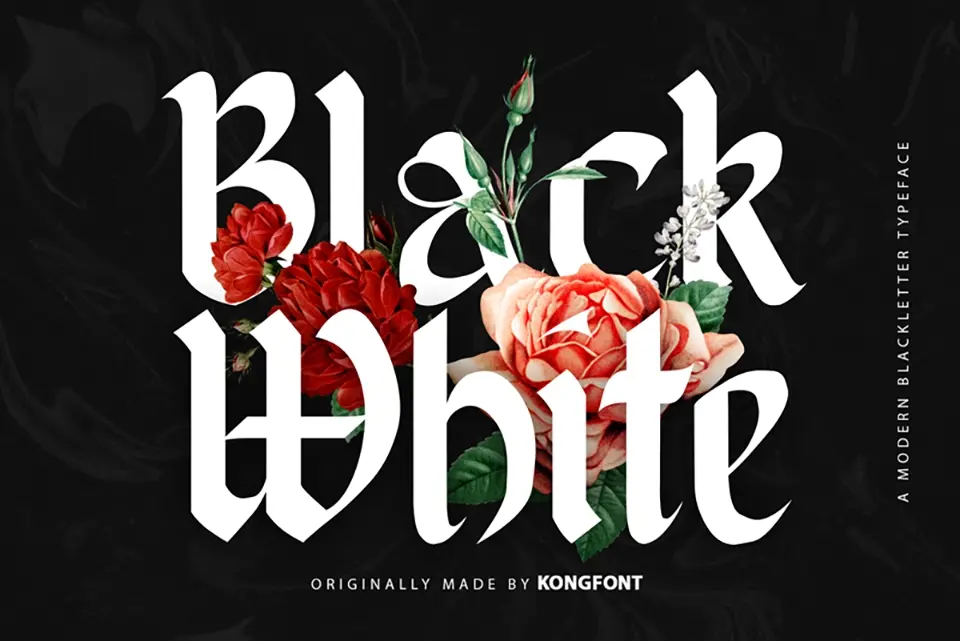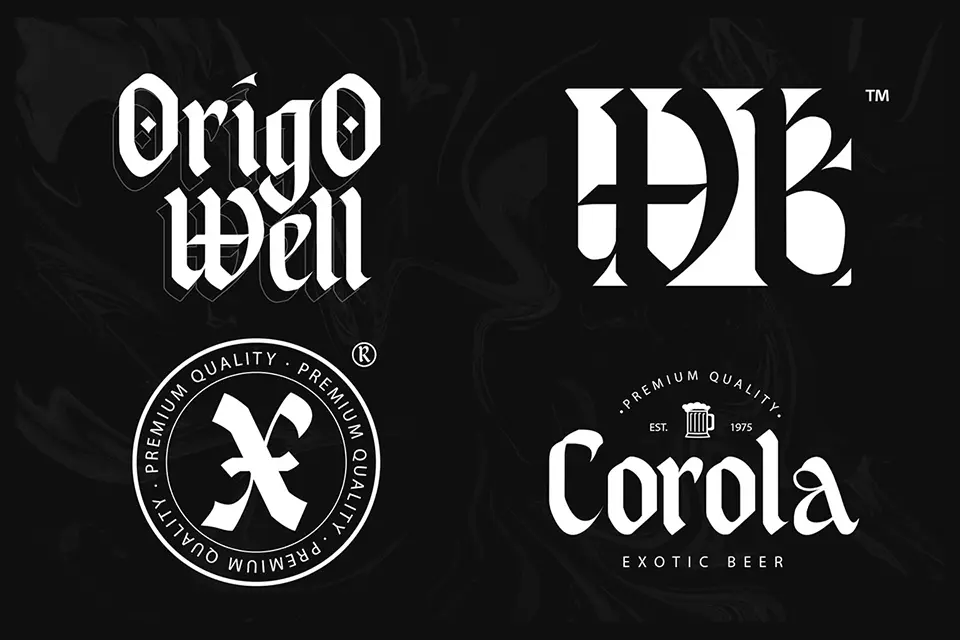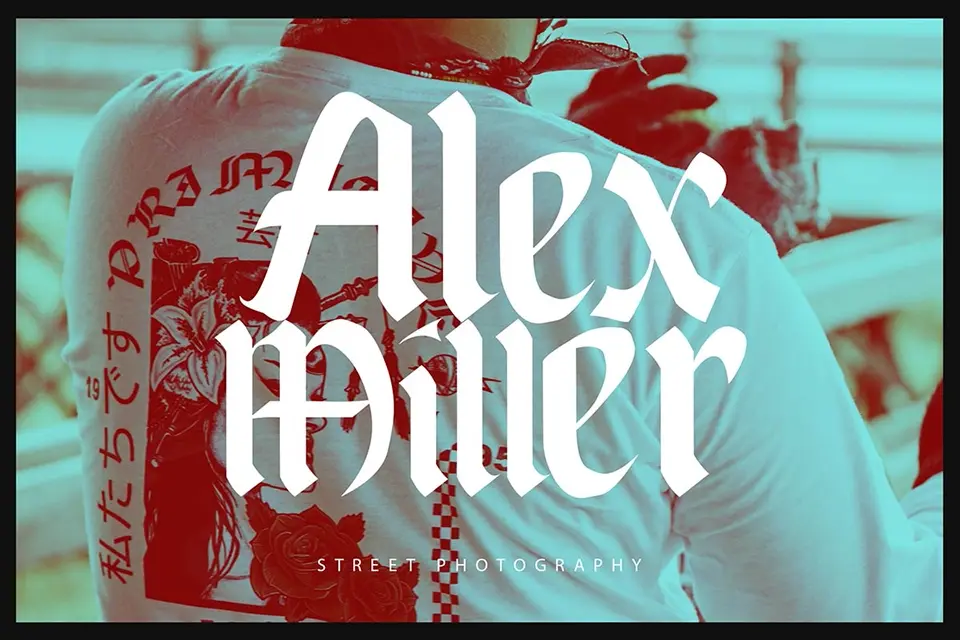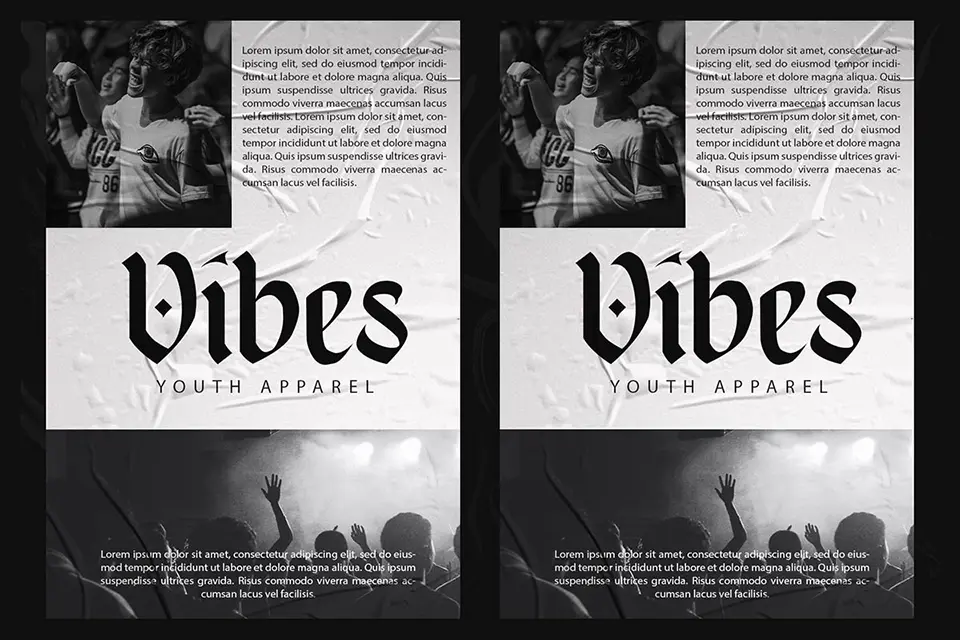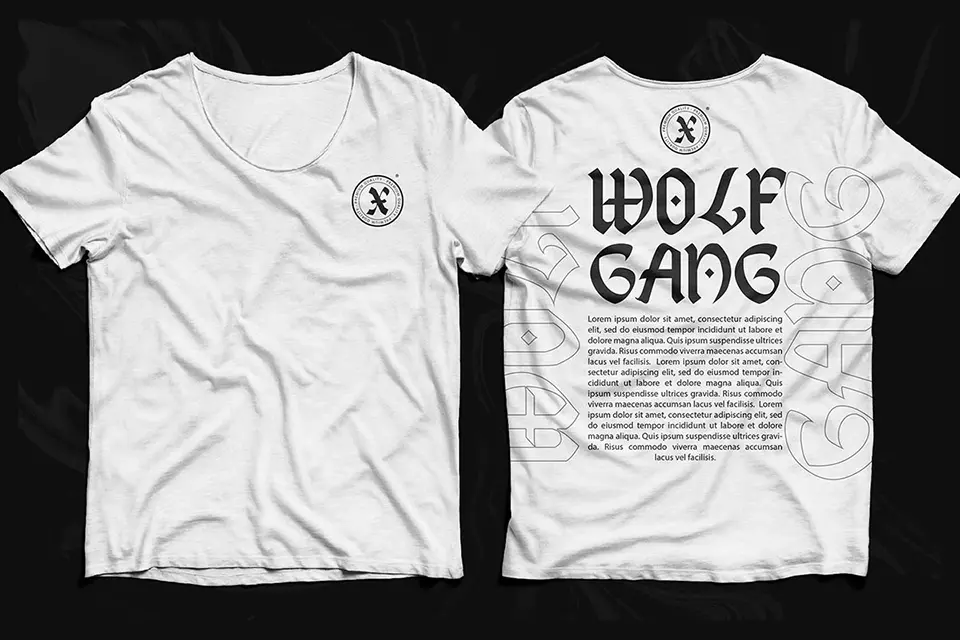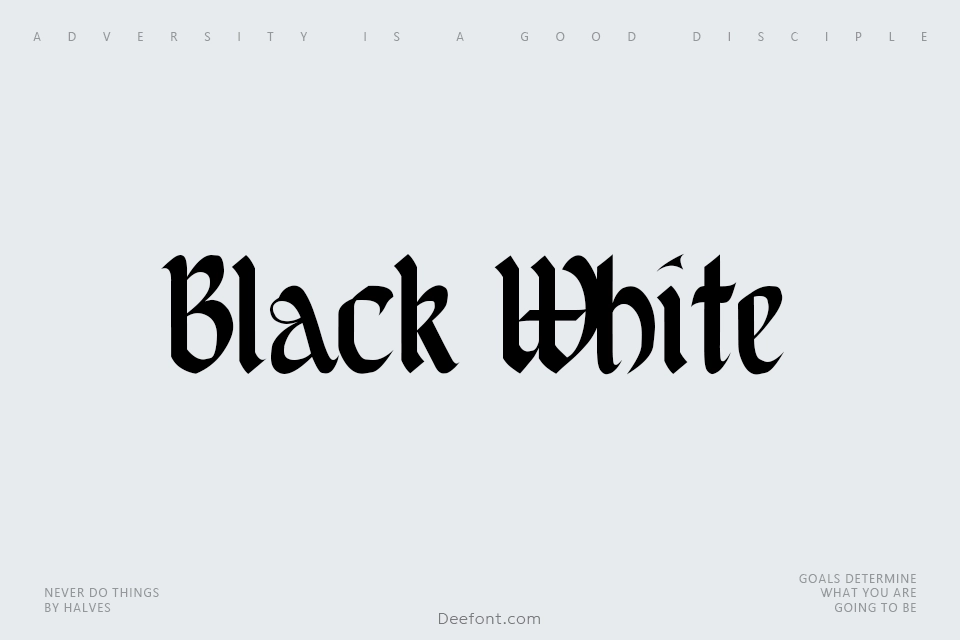
Black White Font
Black White is a bold gothic display font crafted by Kong Font, featuring striking contrast and contemporary design elements. This typeface excels at commanding attention with its strong visual presence, making it ideal for headlines, logos, and impactful creative projects. The font combines modern aesthetics with bold character forms, perfect for designers seeking powerful typography that demands recognition across various media applications.